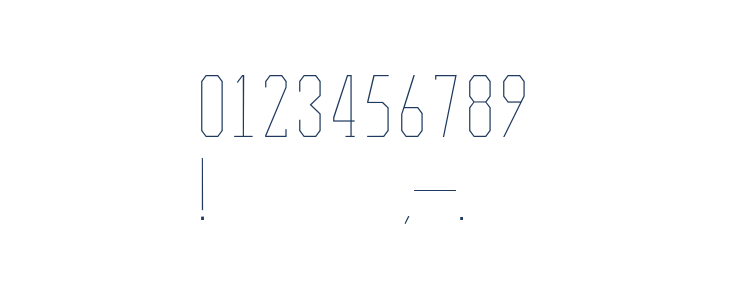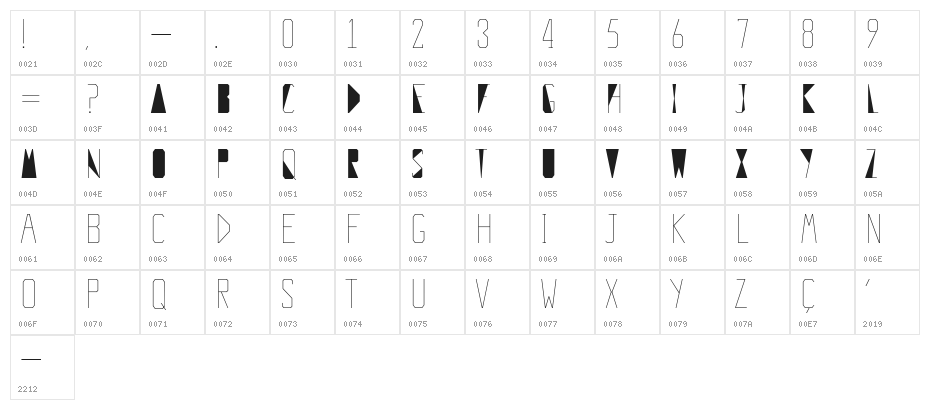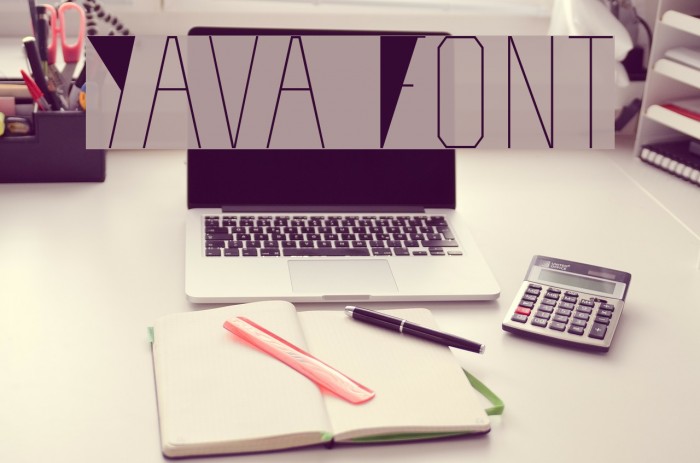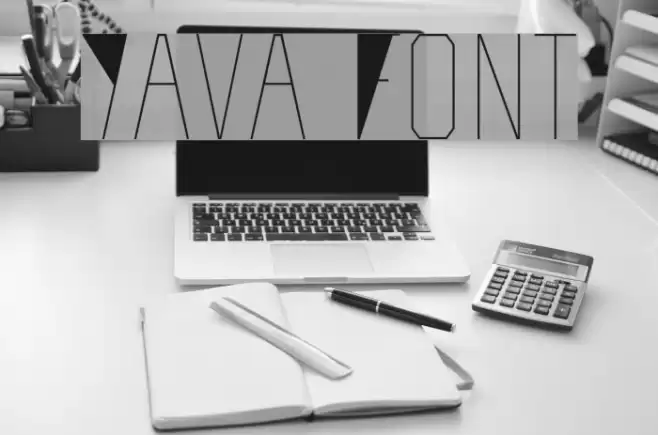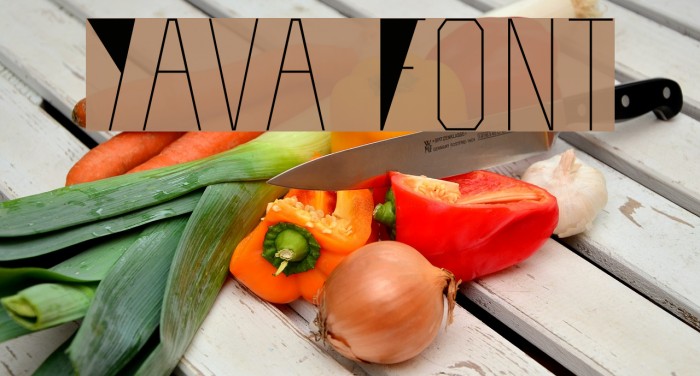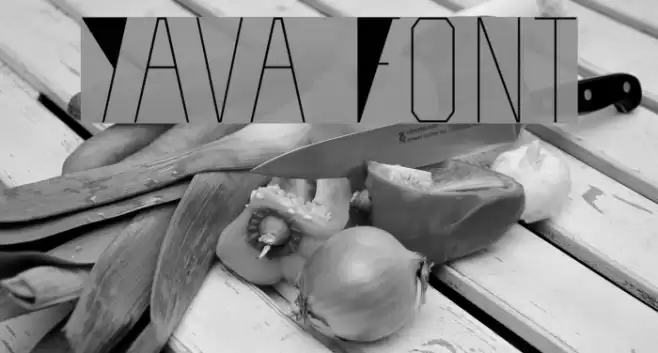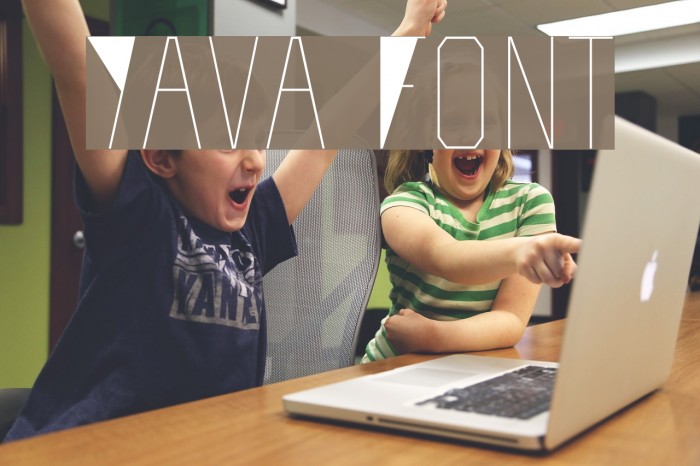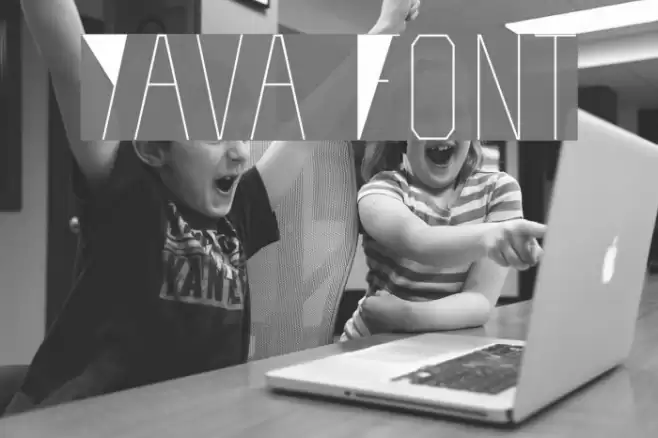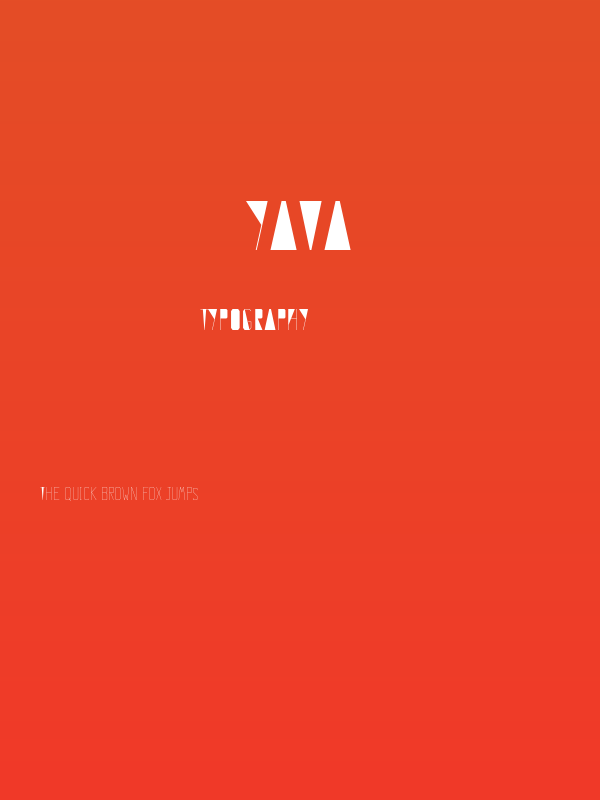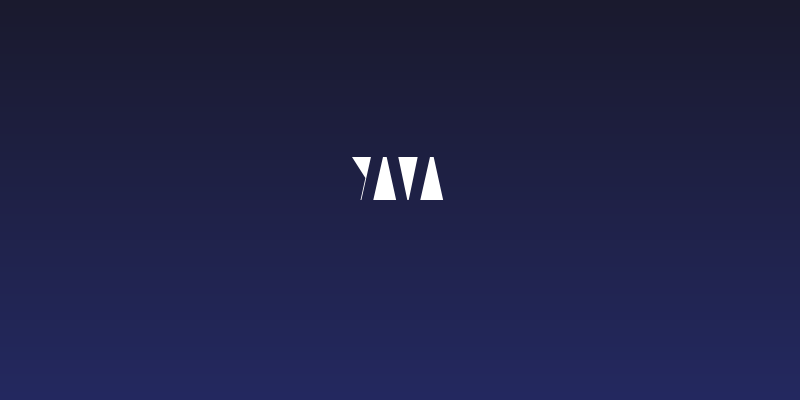
Yava Font
Yava Description
This font features a unique and modern design with a geometric and angular aesthetic. The uppercase letters are bold and striking, with sharp edges and distinct shapes that create a futuristic feel. The lowercase letters maintain a consistent style, offering a sleek and cohesive look. Numbers and special characters are designed with the same angular precision, ensuring uniformity across all characters. The font's clean lines and contemporary style make it suitable for a variety of design projects where a modern and edgy appearance is desired.
| Proposed Projects | Ideal for branding, posters, and digital media where a modern and edgy look is needed. |